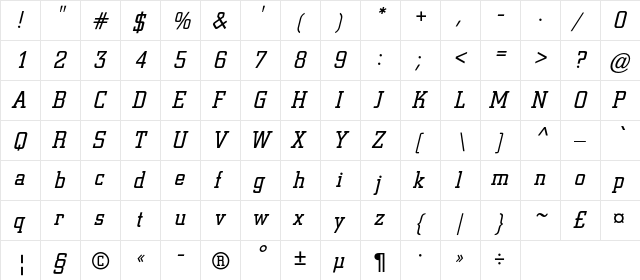
ColiseumC Italic
Design Context for ColiseumC Typeface
ColiseumC takes a measured approach to typography — its balanced proportions and neutral character make it a reliable workhorse for both digital and print work. Its italic angle brings a sense of urgency and motion to the letterforms.
Pro Tip: Try ColiseumC for annotation and caption copy alongside an upright companion — the contrast in angle creates a dynamic but ordered typographic system.